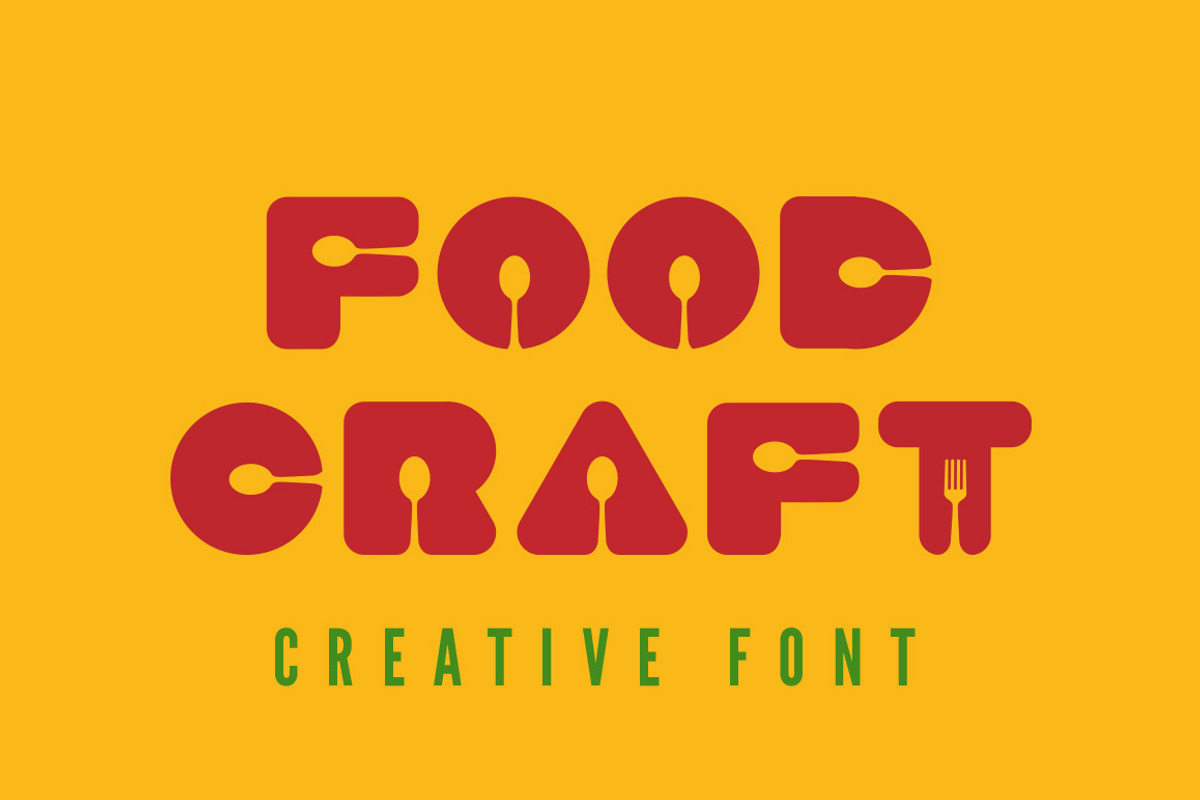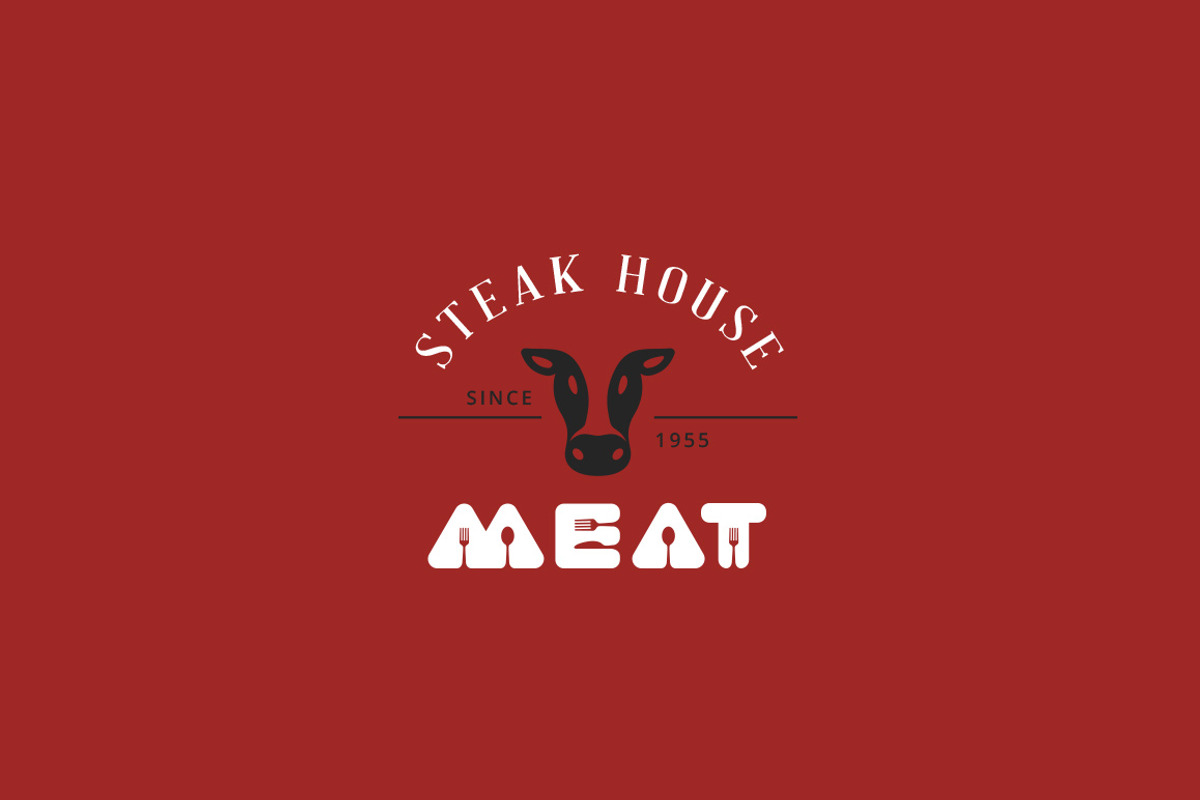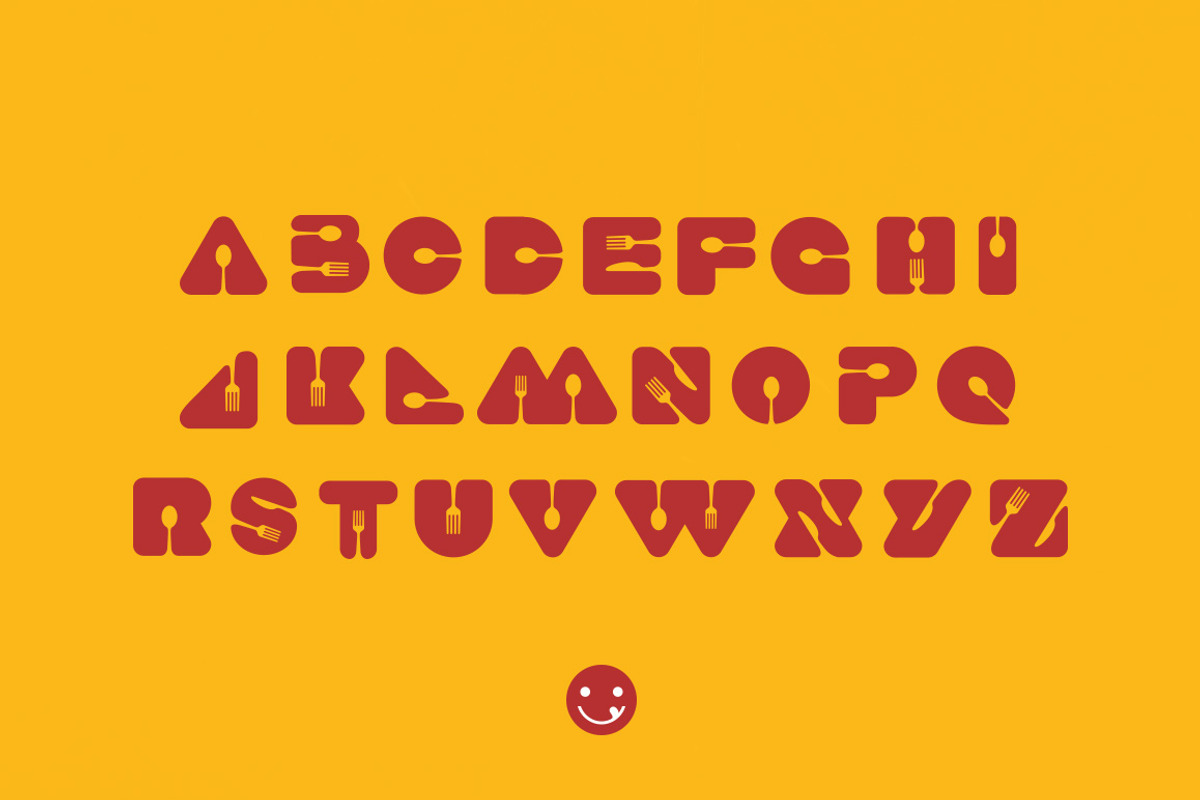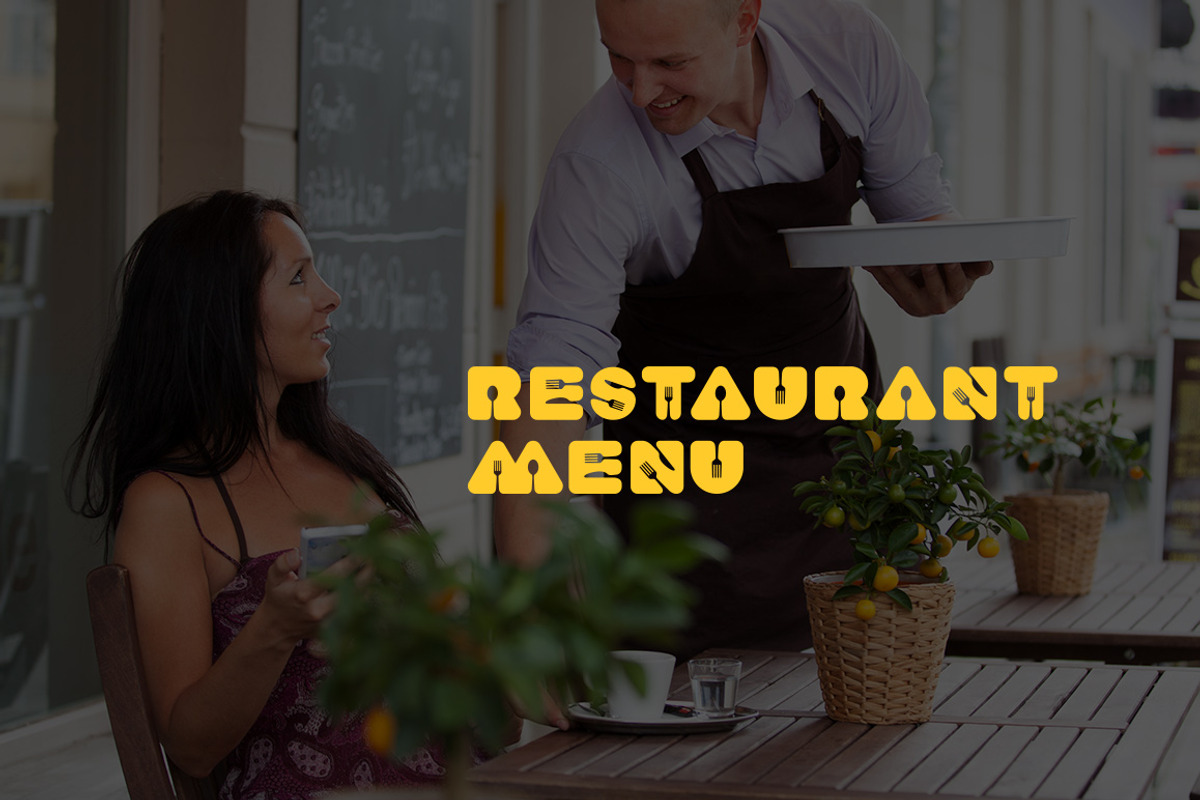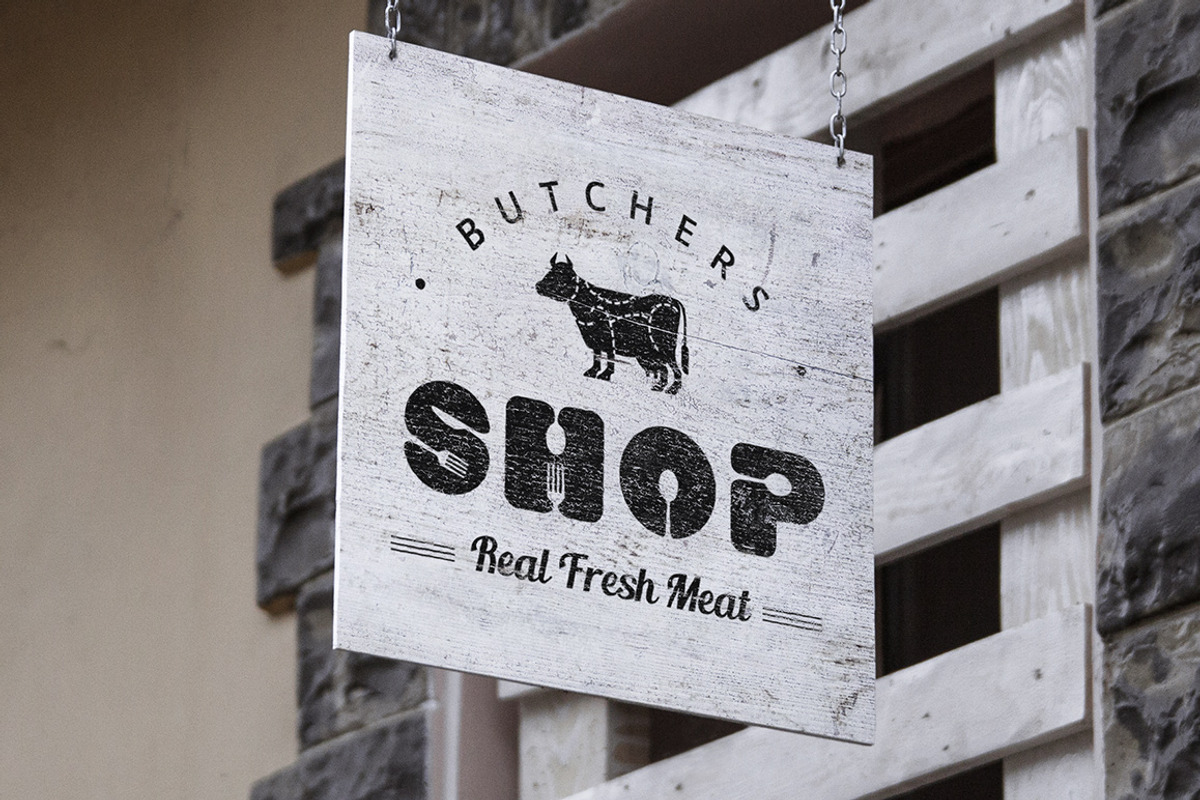
Food Craft Font
Food Craft Font by Sentavio is a font selected for branding, posters, packaging, typography.
Why Food Craft Font is worth a look
Food Craft Font by Sentavio fits naturally into Branding, posters, packaging, typography.